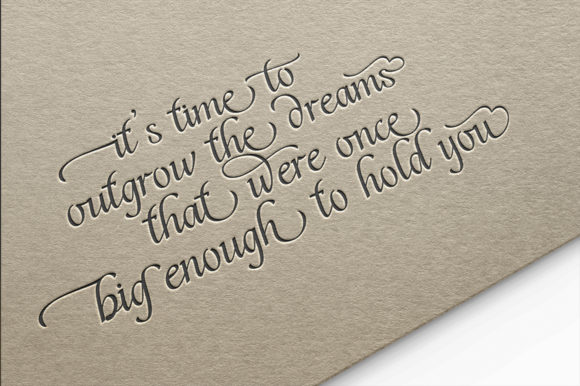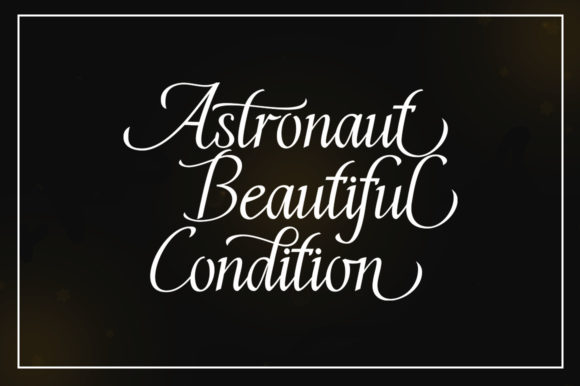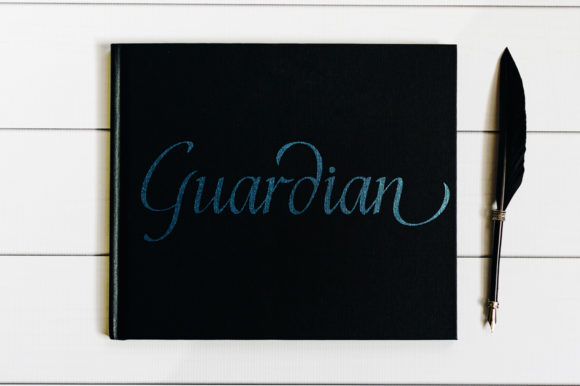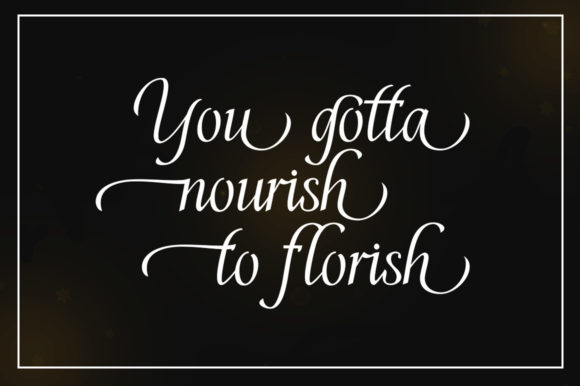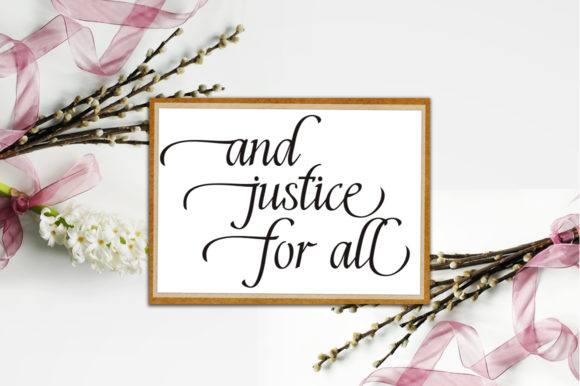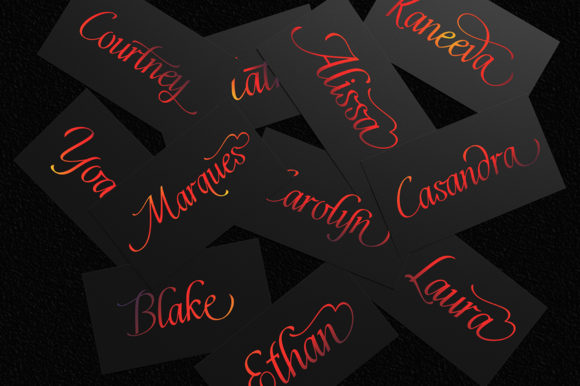
Introduction to Enthrall Font
Enthrall is a dazzling script font that comes with seductive alternates characters.
Get creative with this sophisticated typeface .
Key Features of Enthrall Font